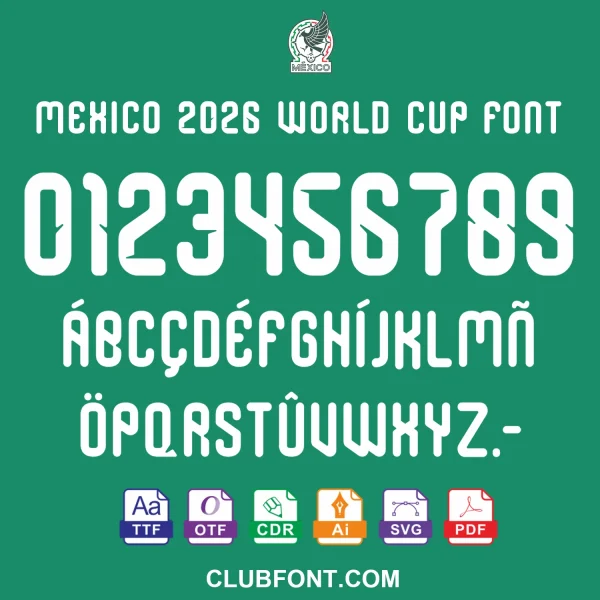
Elevate your sports designs with the Mexico 2026 World Cup Font package. This collection captures the vibrant and energetic typography style associated with the Mexican national team and the upcoming tournament. Perfect for creating authentic jersey name sets, matchday graphics, and fan merchandise.
• Full Character Set: Uppercase A-Z, Numbers 0-9, and essential punctuation.
Perfect for:
1. Official-style Football Jersey Printing (Names & Numbers)
2. Fan Apparel (T-shirts, Hoodies, Training Gear)
3. Stadium Signage and Banners
4. Social Media Graphics and Sports Branding